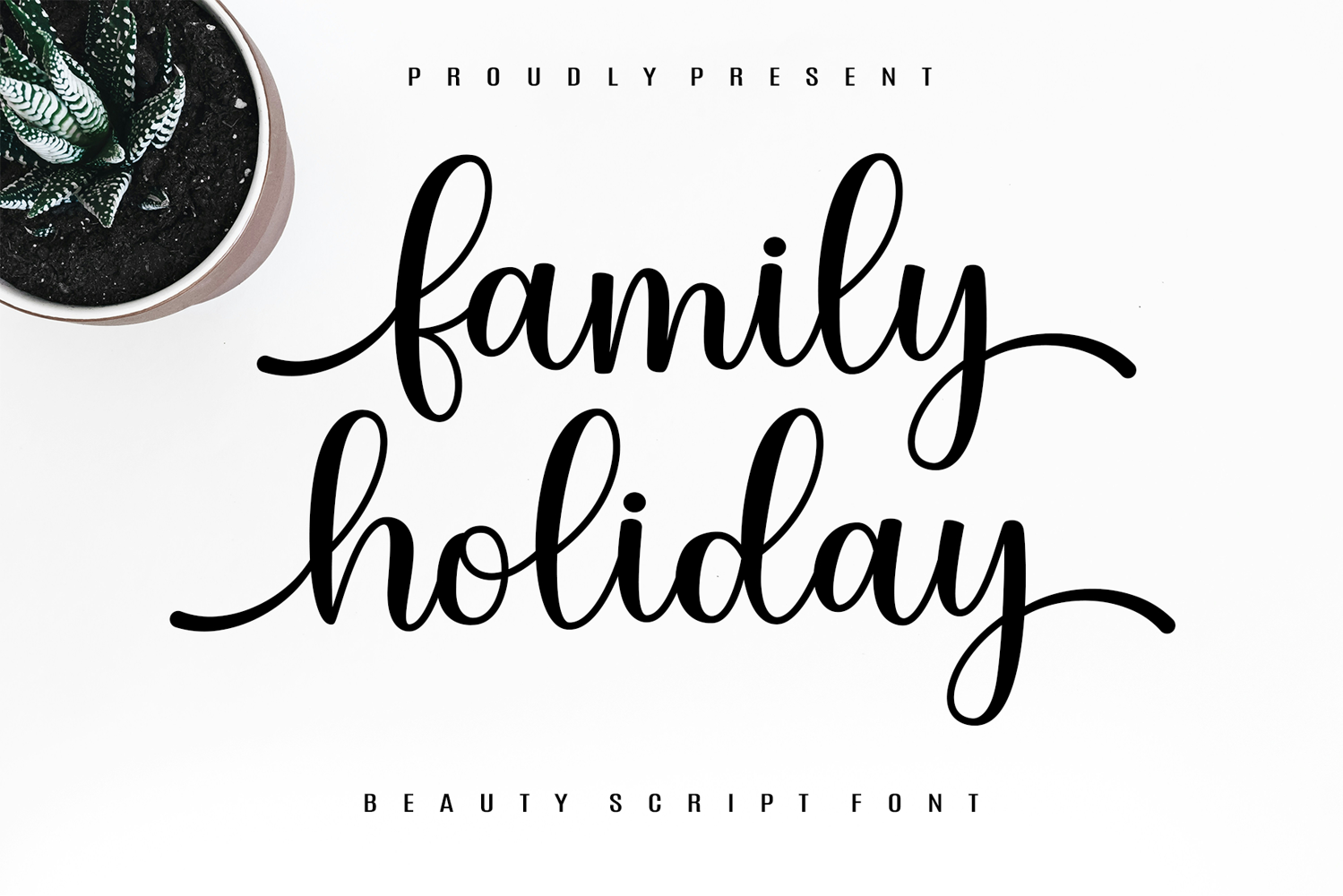
Family Holiday
Introducing Family Holiday, a strikingly beautiful script font elegantly etched in a unique style that leaves an indelible imprint in mind. Its well-crafted design, evocative of touchingly memorable times, offers a sophisticated elegance that instantly resonates with an aesthetic appeal.